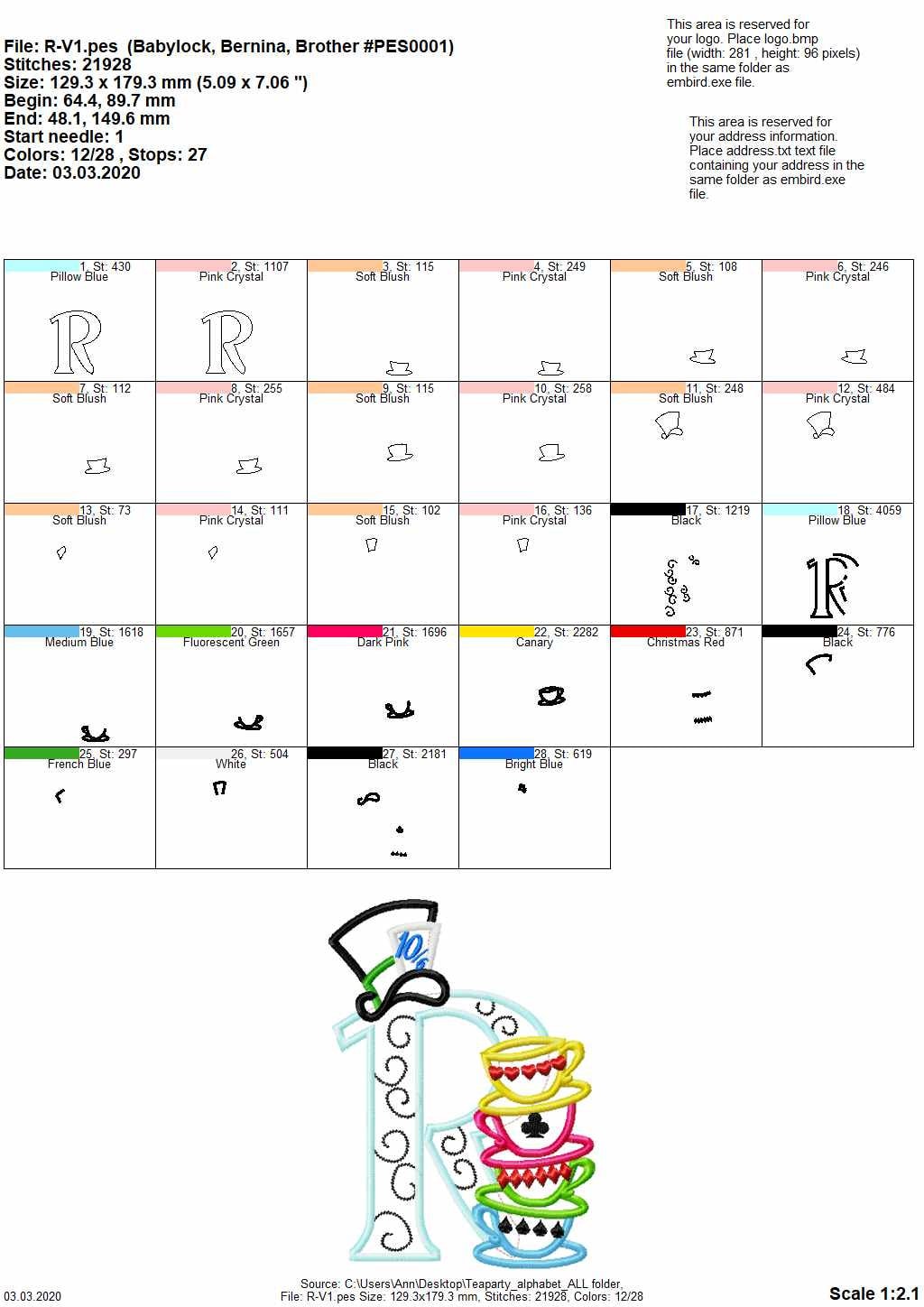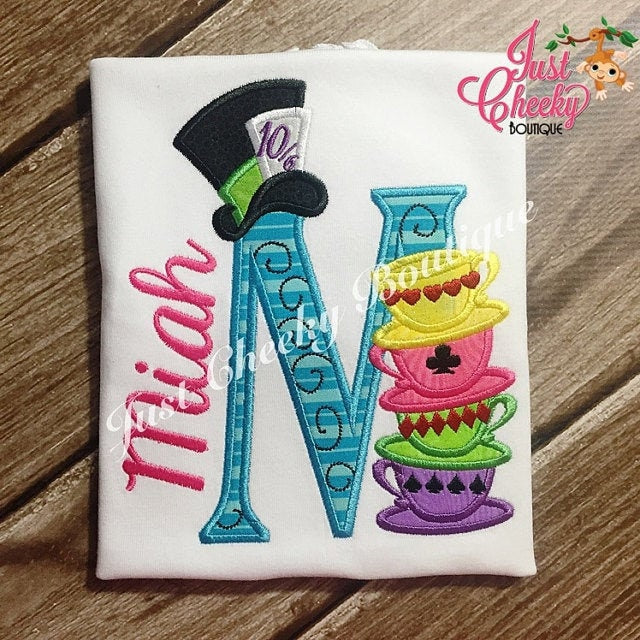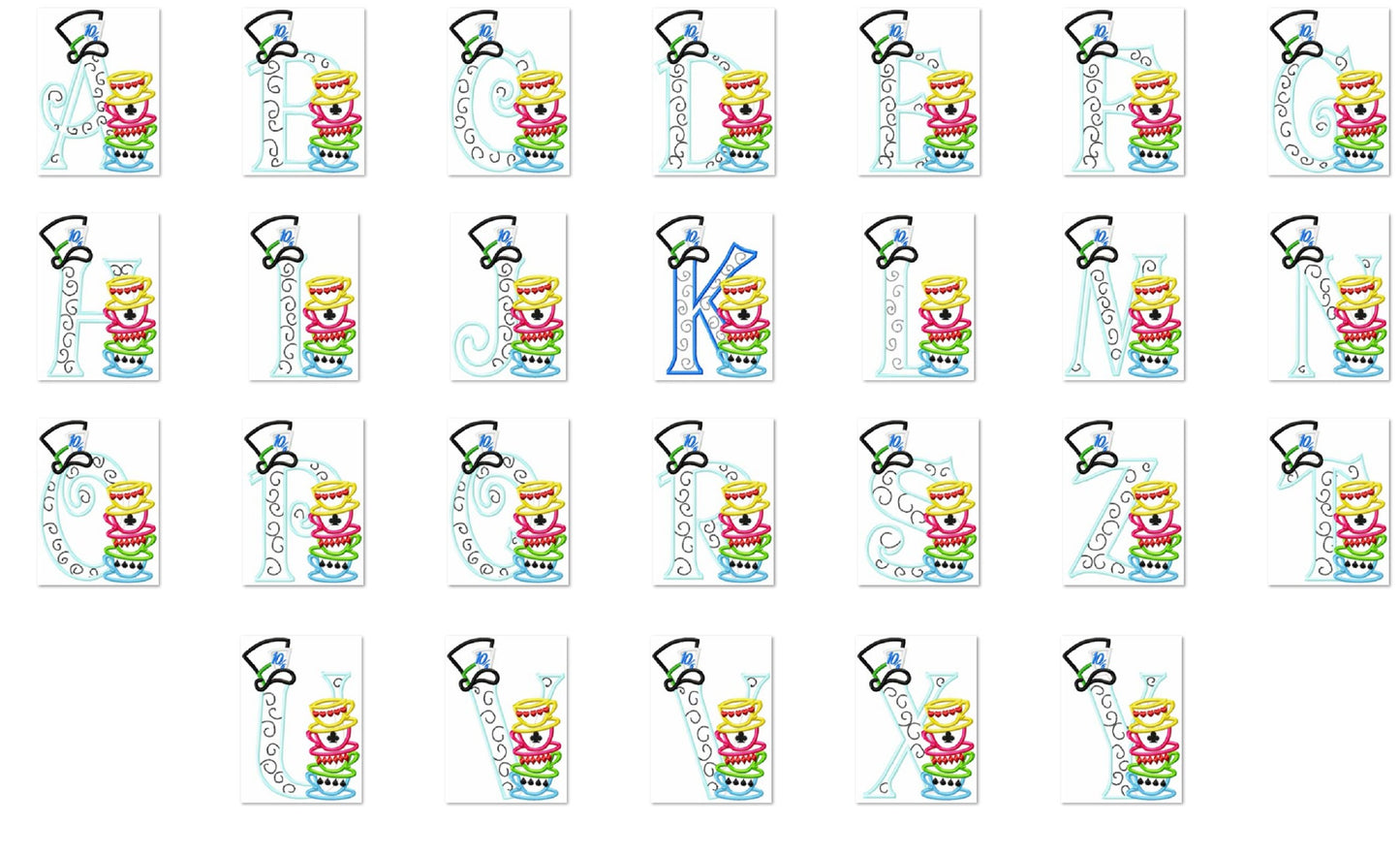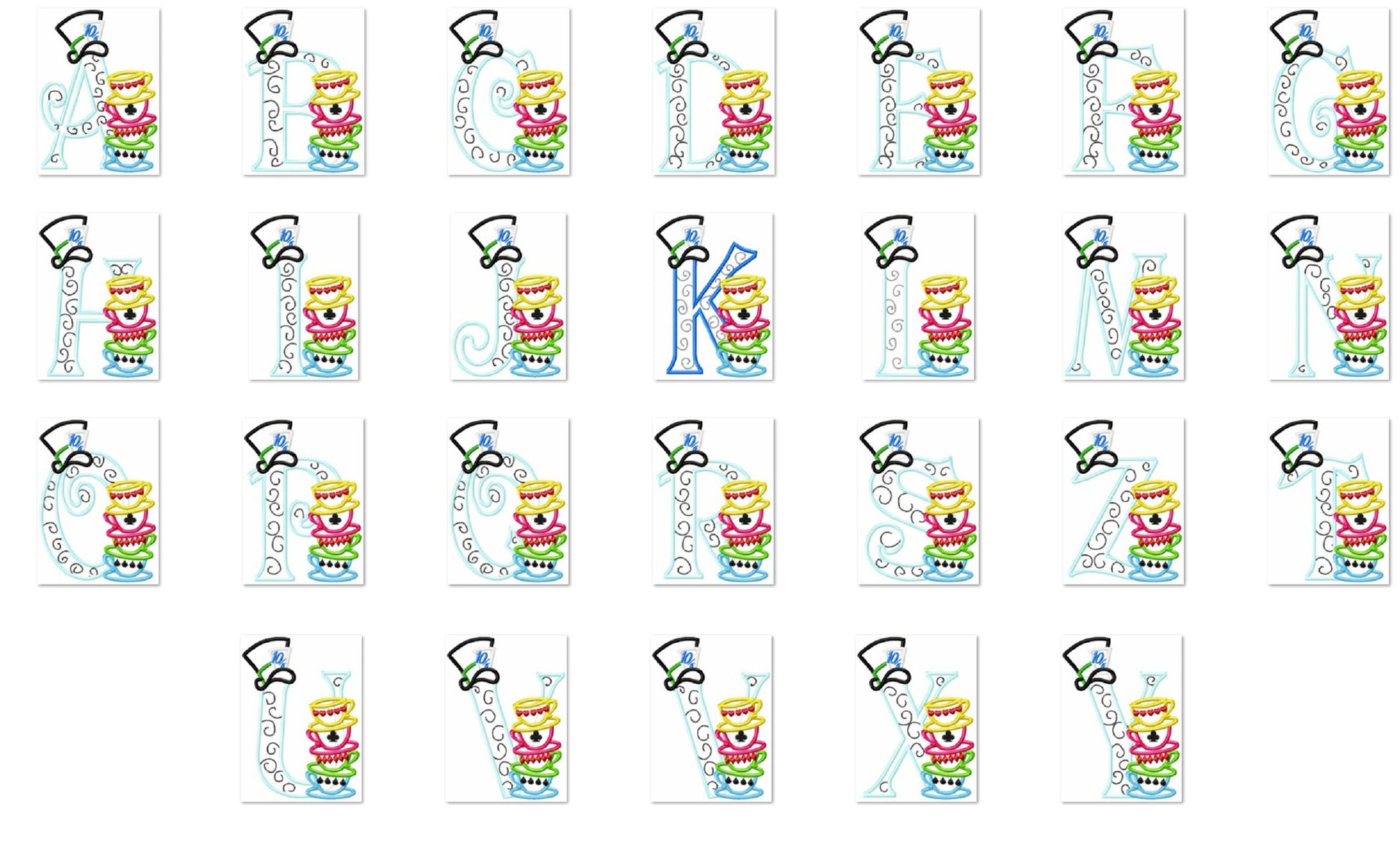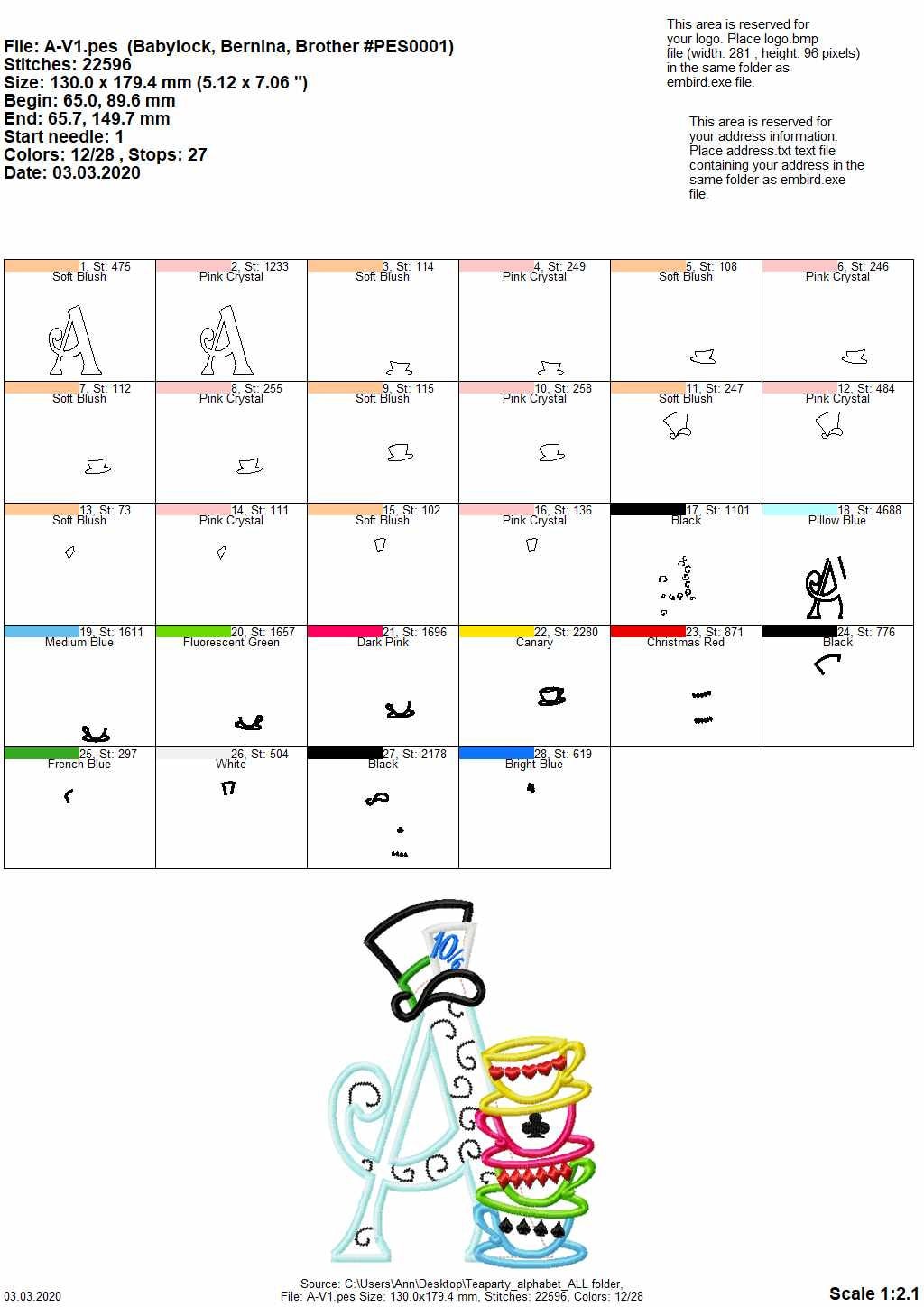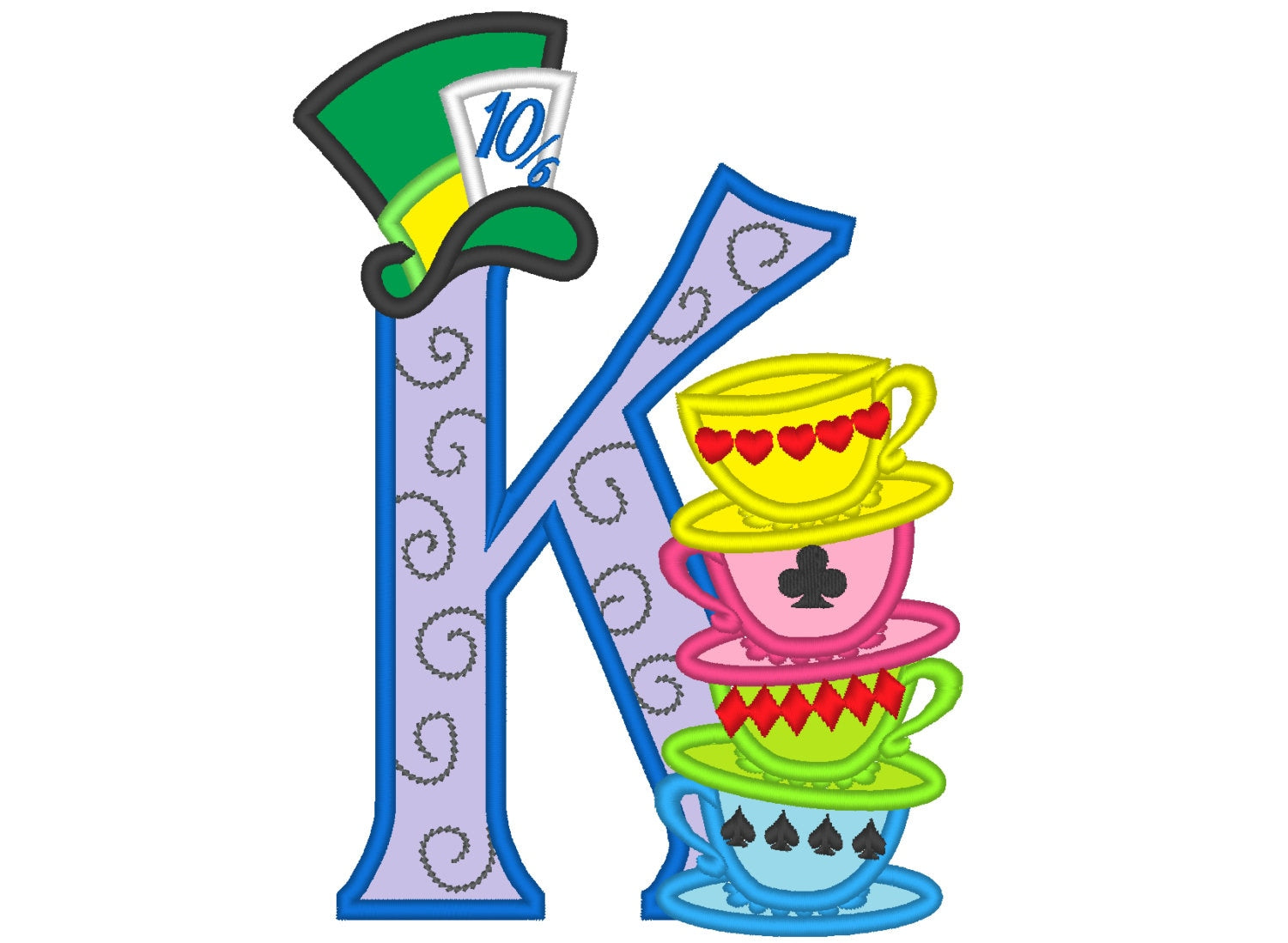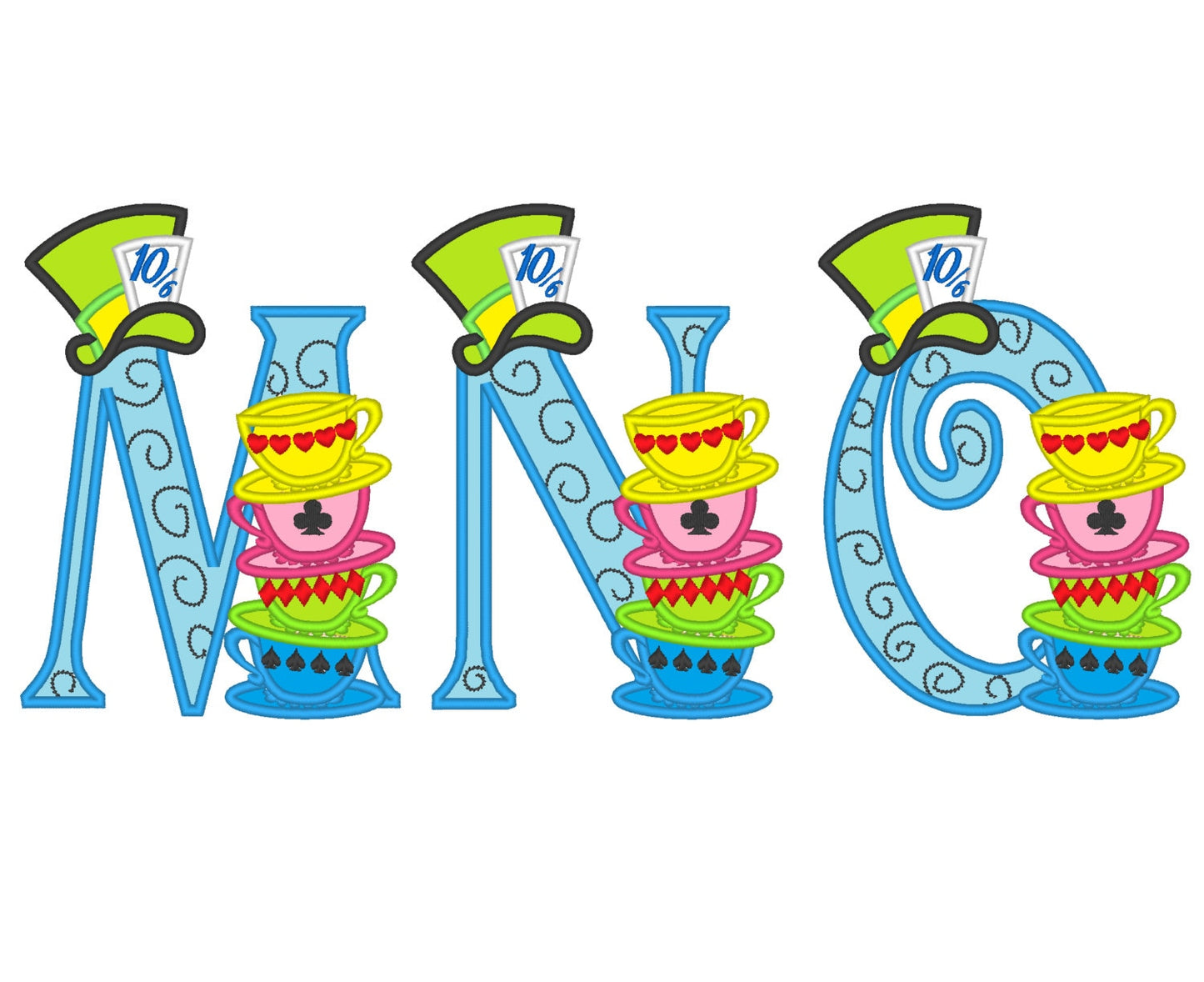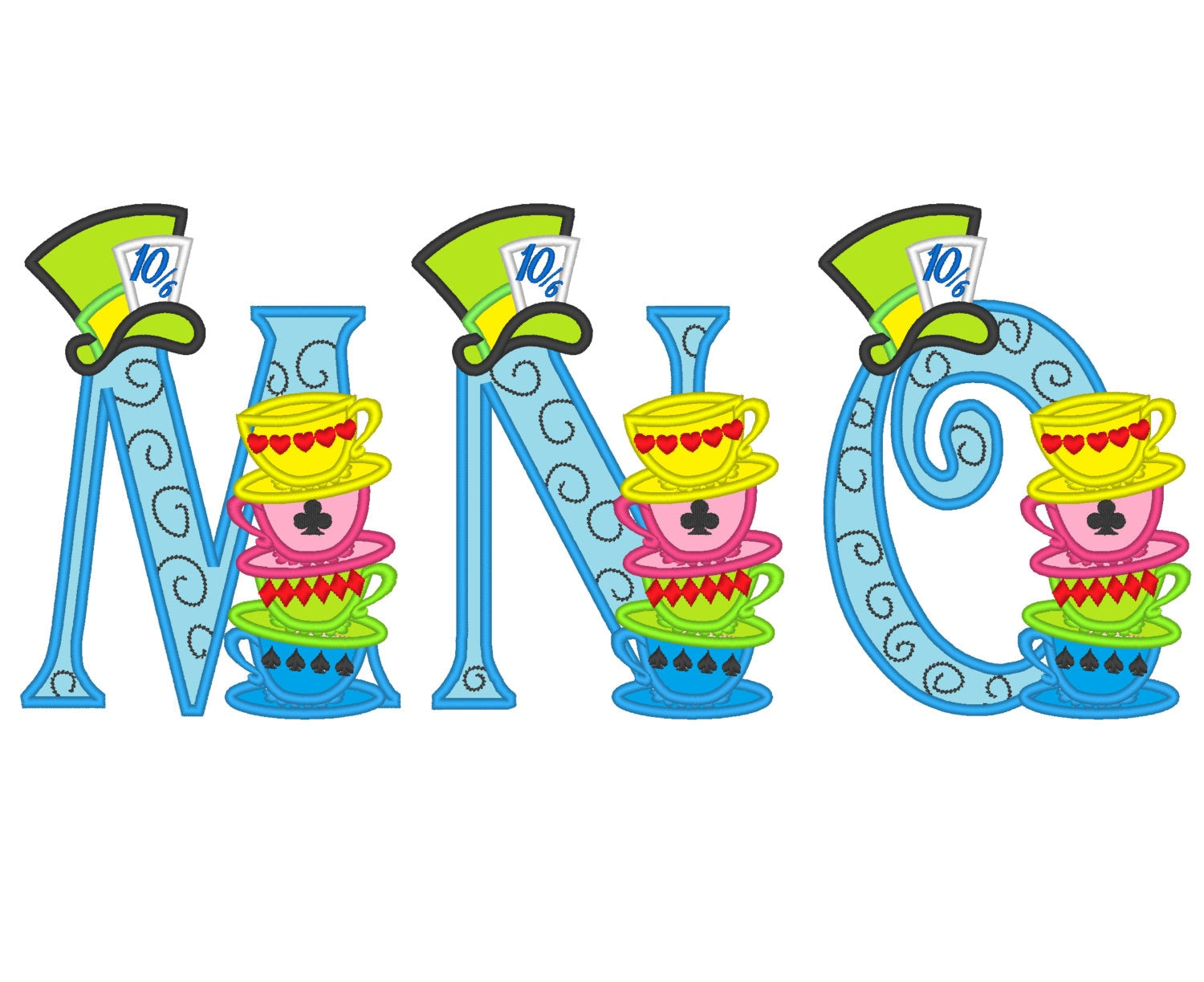
Or click to open the linkA Mad Hatter tea party alphabet: each letter wears a top hat and sits on stacked tea cups. For Wonderland birthday shirts, tea party decor and monogram gifts.
All 26 letters from A to Z, each 7 inches. The hat and tea cups are applique, so every letter is bold and playful.